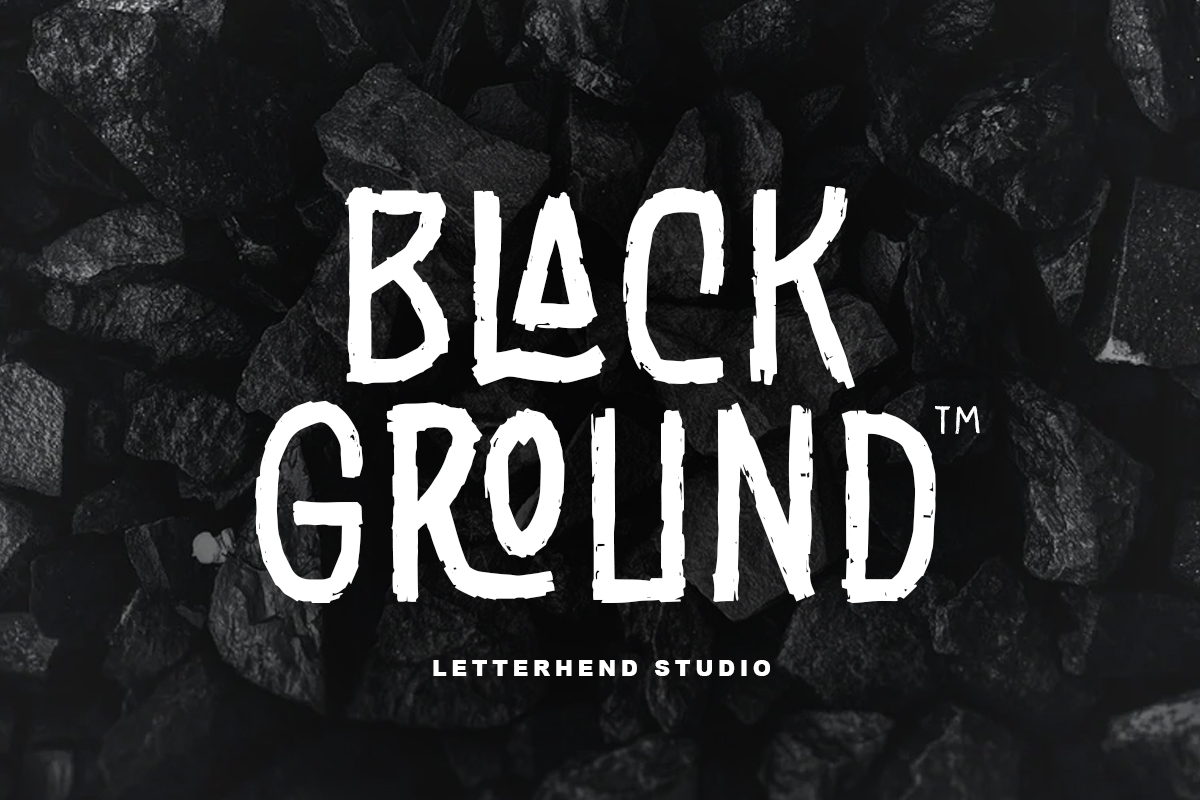
Black Ground Font
Black Ground Font is widely used in underground music album covers, urban streetwear branding, grunge poster designs, alternative rock concert materials, skateboard graphics, rebellious fashion labels, indie film titles, and countercultural art projects.
Black Ground Font is an exciting typeface that embodies the raw spirit of underground culture with its gritty texture and rebellious character. This font captures the authentic energy of street-level creativity and grassroots movements, making it perfect for brands that want to convey authenticity, rebellion, and uncompromising artistic vision in their visual communications.
The Black Ground Font family includes Regular, Bold, Light, Italic, Distressed, Rough, Stencil, and Weathered variants. This underground collection provides designers with multiple expressions of rebellion and authenticity to match different subcultural aesthetics and alternative project requirements.
The distinctive edge of Black Ground Font lies in its ability to convey the uncompromising spirit of underground movements through bold typographic expression. Each letterform maintains the raw energy and imperfect beauty that defines authentic street culture. The font's aggressive stance and organic irregularities create visual tension that captures the passionate intensity of alternative artistic expression.
Independent artists and countercultural brands choose Black Ground Font for its power to communicate authentic rebellion and artistic integrity. The typeface works brilliantly in underground music venues, alternative fashion brands, independent publishing projects, and subcultural event promotion. Its raw aesthetic resonates with audiences who reject mainstream conformity and seek genuine artistic expression.
The rebellious craftsmanship of Black Ground Font includes contextual variations and organic irregularities that enhance the handmade quality essential to underground aesthetic. These authentic features ensure that text maintains the spontaneous energy and unpolished character that defines legitimate grassroots culture while meeting professional standards for commercial underground applications.